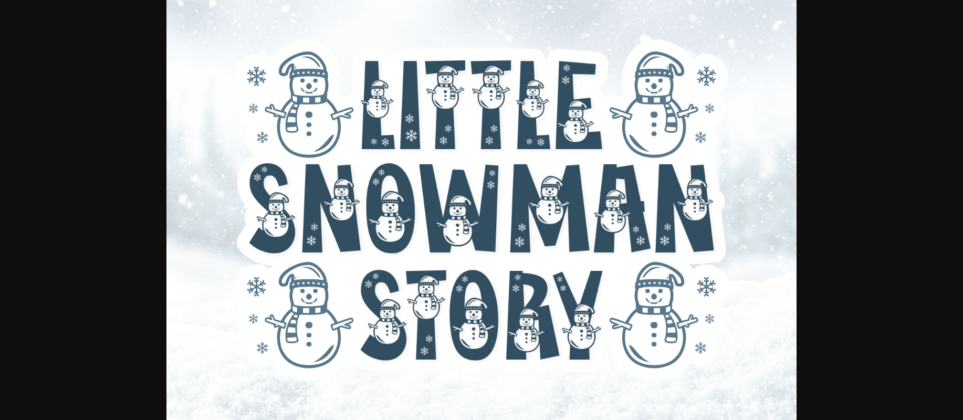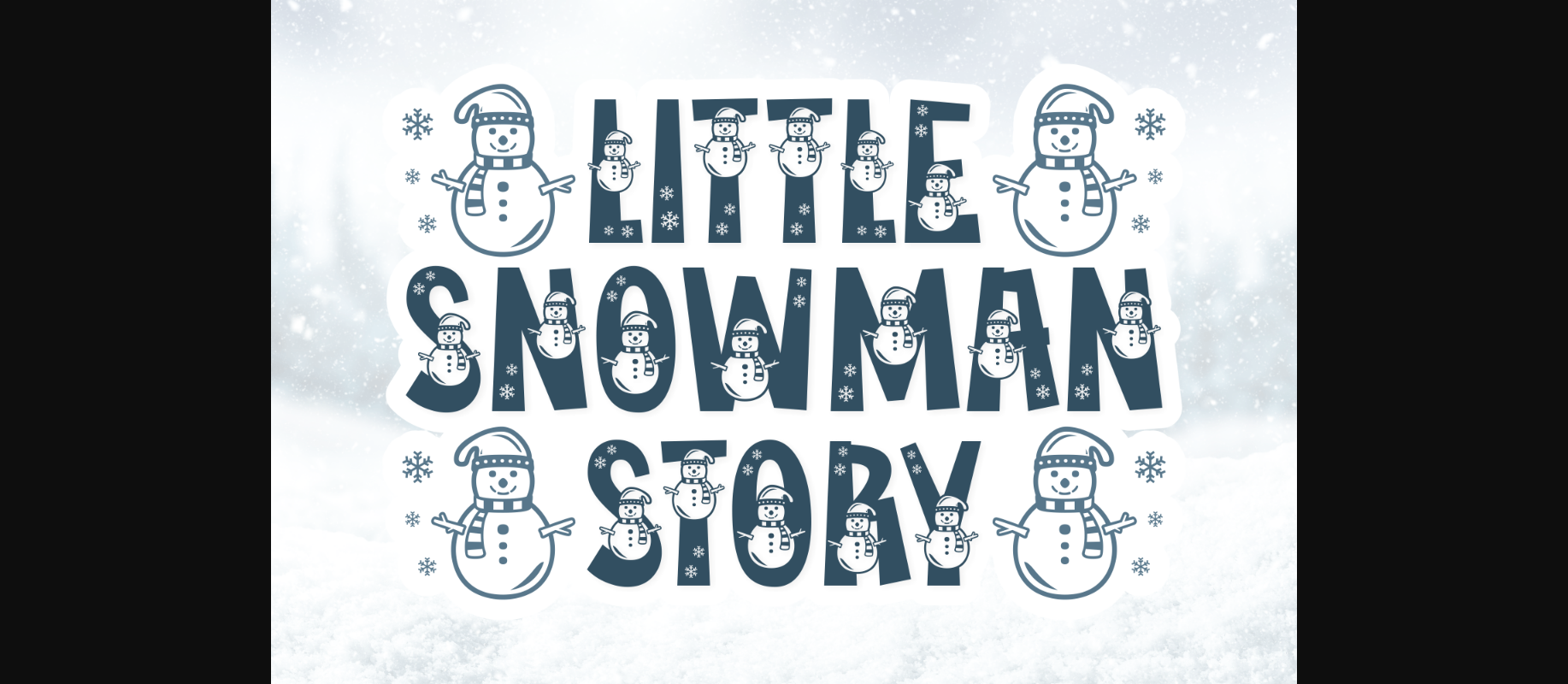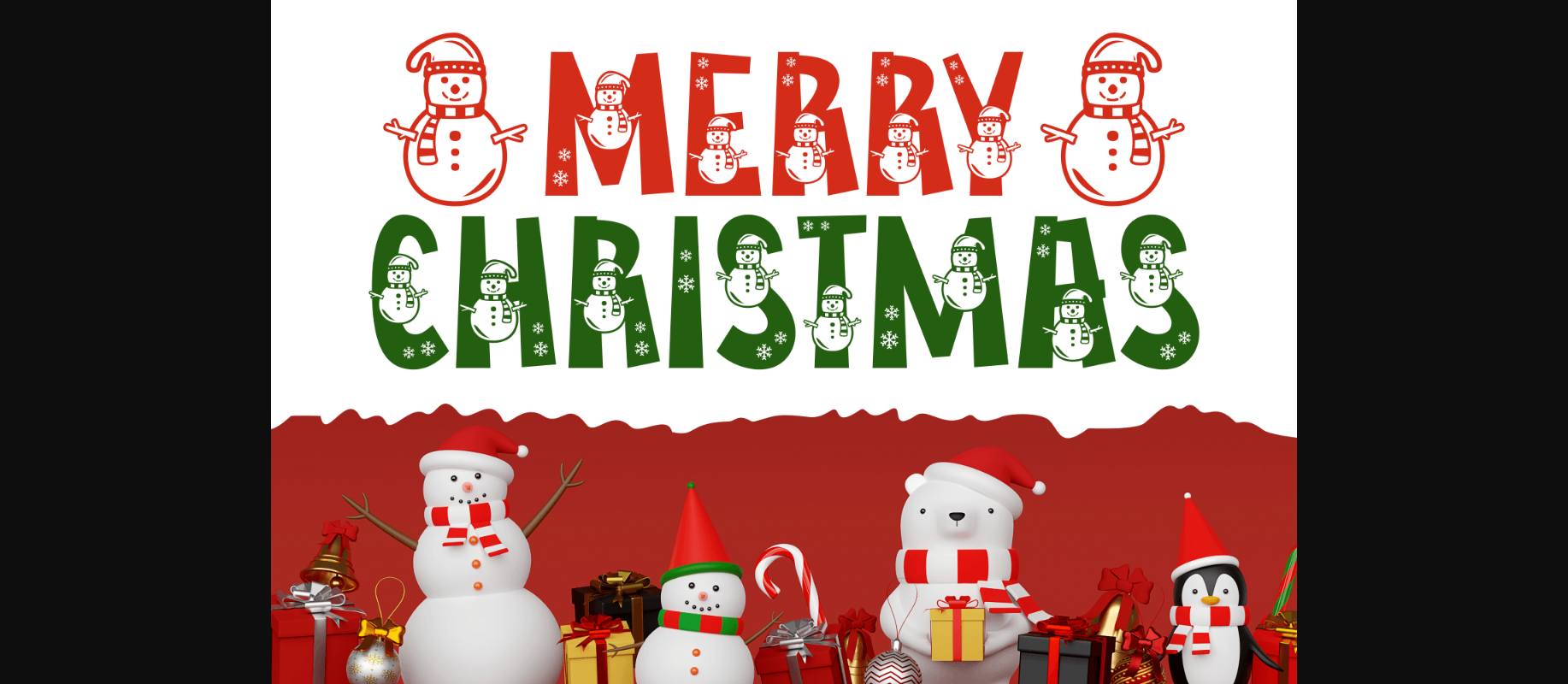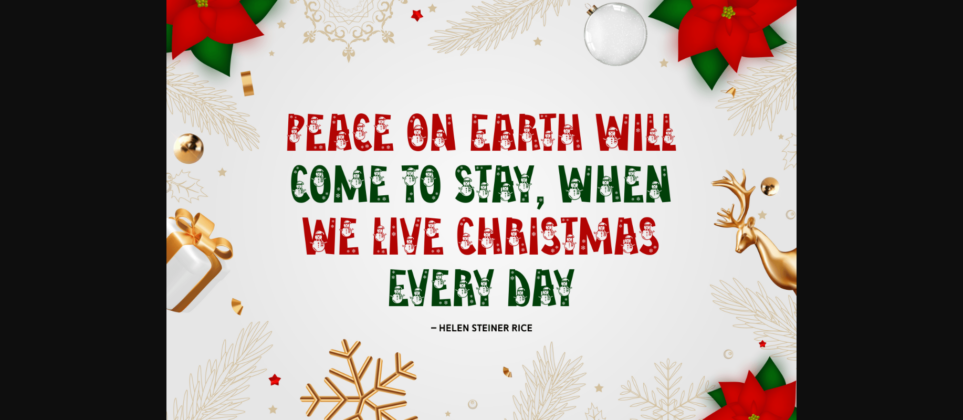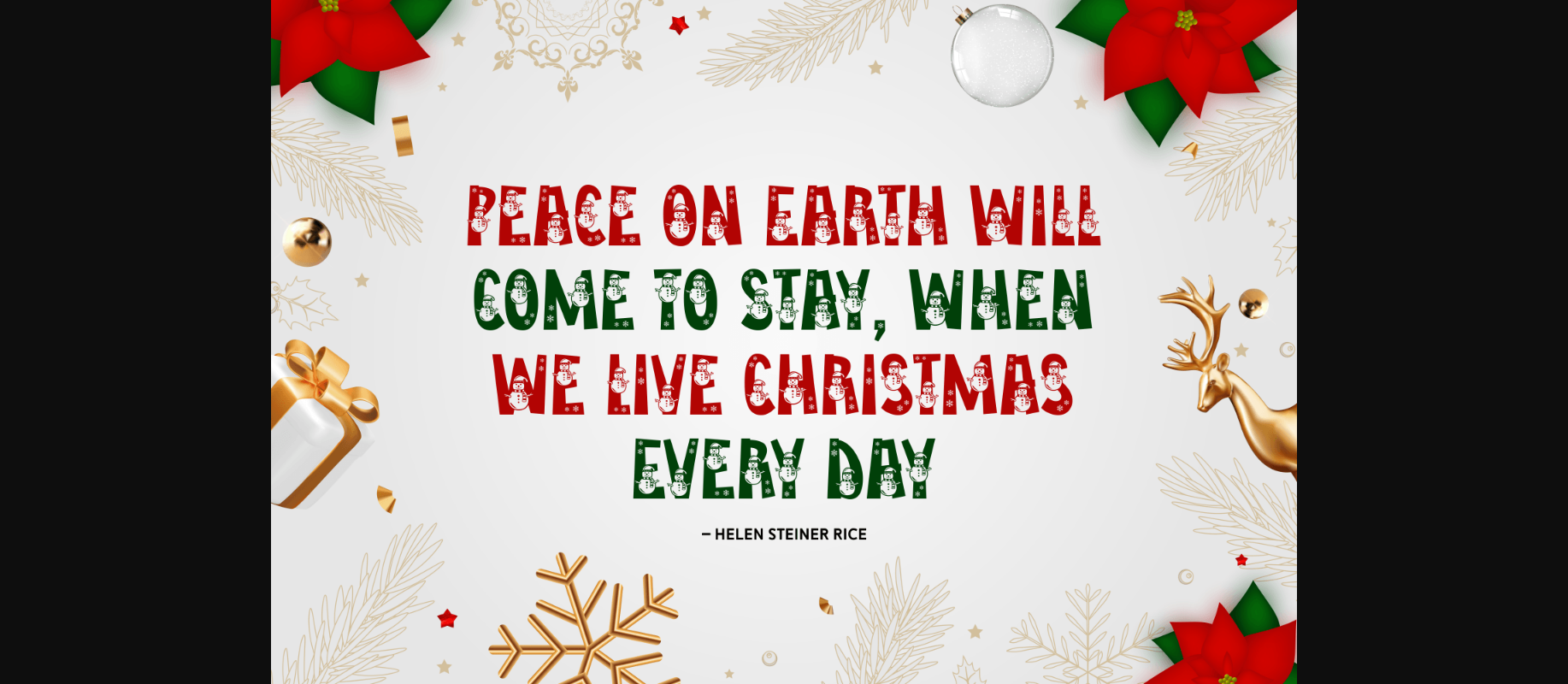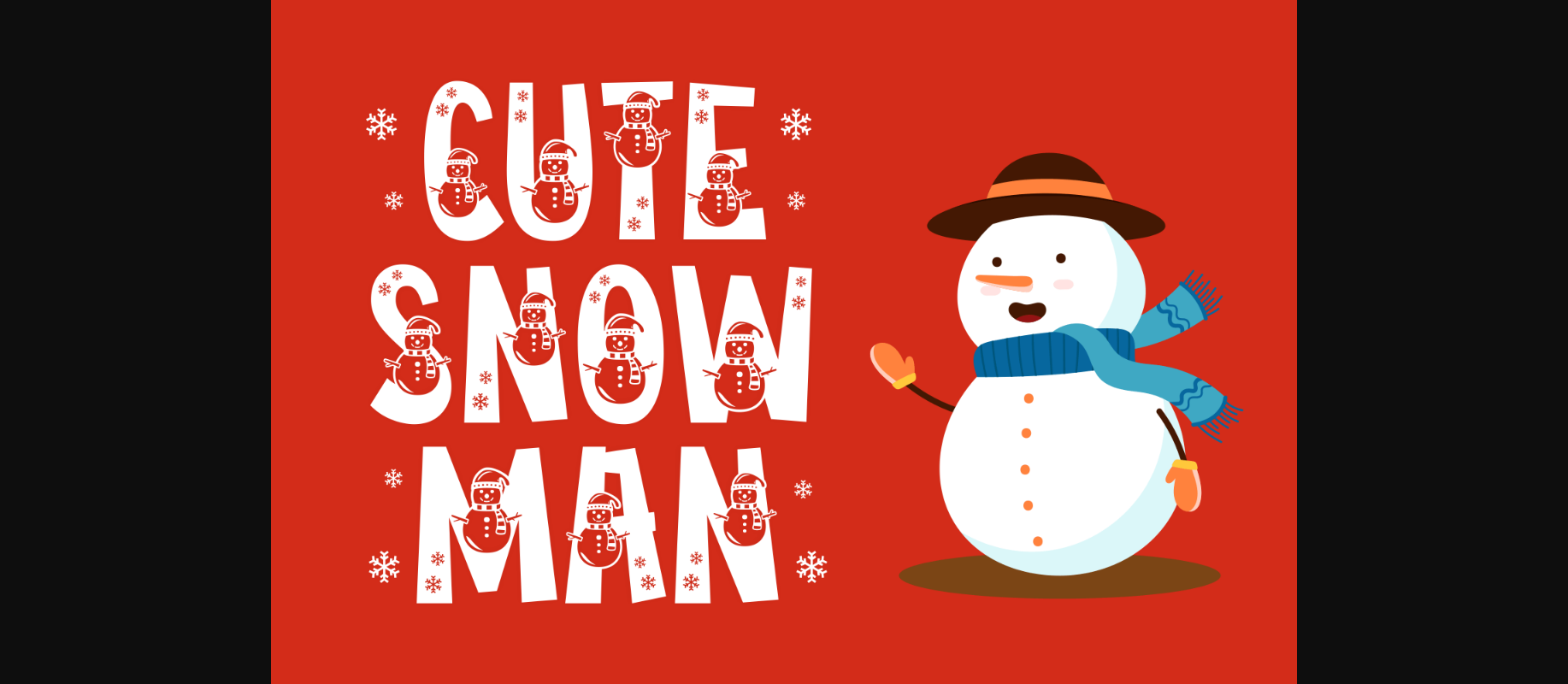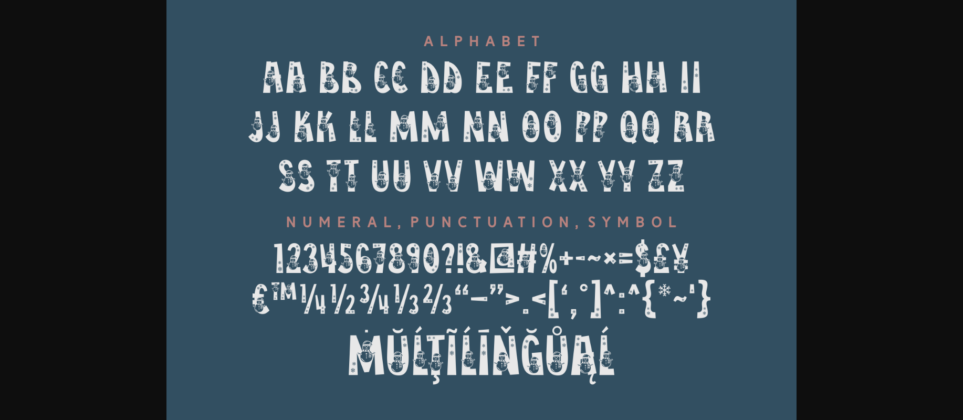
About Little Snowman Story Font
Little Snowman Story is a cute and merry winter-inspired decorative font. Its charming characters are perfect for creating any winter-themed project. Add this font to your collection and use it to make crafts, invitations, cards, quotes, fabric prints, and more!